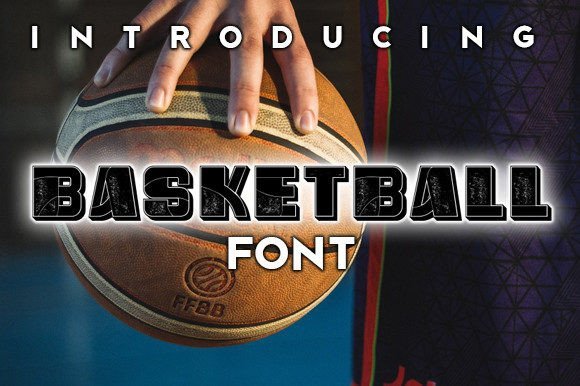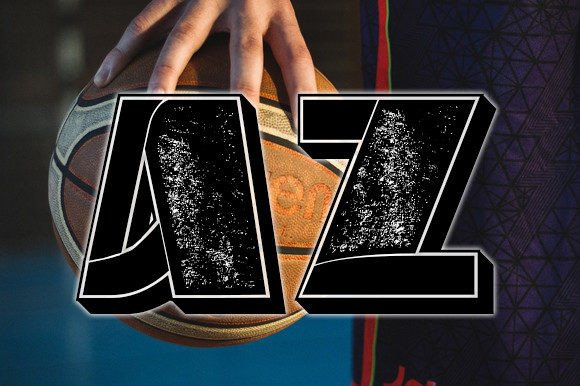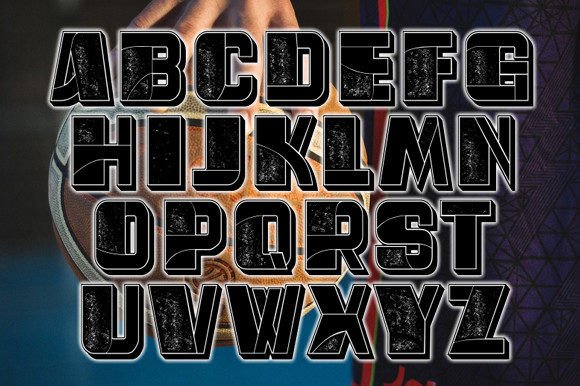
The Perfect Slam Dunk for Your Designs: Basketball Font
Who else remembers the rush of excitement when you first discovered that perfect font that made your design pop? For me, it was a font that screamed ‘game day’ – and now, I’m excited to share that font with you: Basketball Font! This bold, all caps display font is the perfect addition to any design project, whether you’re crafting, designing digitally, creating presentations, or making greeting cards.
What sets Basketball Font apart is its perfect blend of trendiness and versatility. This font is not just a fun addition to your designs – it’s also a valuable asset for designers looking to create eye-catching and memorable projects. With Basketball Font, you can take your designs to the next level and make a lasting impression on your audience.
Basketball Font Key Features
- Font Family: Basketball Font is a custom-designed font, specifically created for basketball-related content.
- Unique Characteristics: Features bold, dynamic letterforms and numbers, with a modern, sporty feel, making it ideal for basketball-themed designs.
- Character Set: Includes a comprehensive set of uppercase and lowercase letters, numbers, and punctuation marks, ensuring versatility in design applications.
Basketball Font Review
As a designer, I was excited to dive into the Basketball Font, a typeface that promises to bring the excitement of the court to your typography. Here’s my honest review.
- The font’s energetic and dynamic feel is perfect for sports-related designs, such as basketball-themed websites, merchandise, or social media graphics.
- The font’s bold and modern design makes it easy to read, even in smaller sizes.
- The font’s versatility allows it to be used in various contexts, from headings to body text.
- The font’s design may not be suitable for more formal or professional projects, as it can come across as too playful or informal.
- The font’s boldness can make it difficult to read in certain backgrounds or color combinations.
- The font’s limited character set and language support may be a drawback for designers who need to work with non-Latin scripts.
Overall, I think the Basketball Font is a great choice for designers who need a bold and energetic typeface for sports-related projects. While it has its limitations, its versatility and modern design make it a valuable addition to any designer’s toolkit.
The Basketball Font is perfect for sports-related designs, such as jerseys, posters, and social media graphics. It’s also great for creating a fun and energetic atmosphere in your designs. Experiment with different font sizes, colors, and styles to create a unique look that stands out.
Alternatives to Basketball Font for Designers
Rockwell is a serif font that is often used in formal and professional settings. It is a great alternative to Basketball Font when you need a font that exudes a sense of sophistication and elegance. Rockwell has a similar slab serif style to Basketball Font, but it is more refined and polished. Use Rockwell when you need a font that conveys a sense of authority and professionalism.
Comparison to Basketball Font: Rockwell is more formal and polished than Basketball Font, with a more refined slab serif style.
Arial Black
Arial Black is a sans-serif font that is often used for headings and titles. It is a great alternative to Basketball Font when you need a font that is bold and attention-grabbing. Arial Black has a similar bold and condensed style to Basketball Font, but it is more modern and sleek. Use Arial Black when you need a font that demands attention and makes a statement.